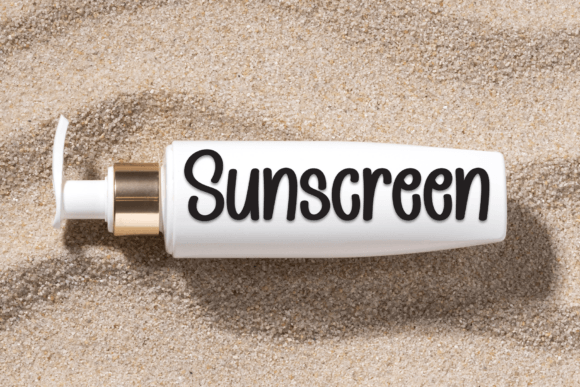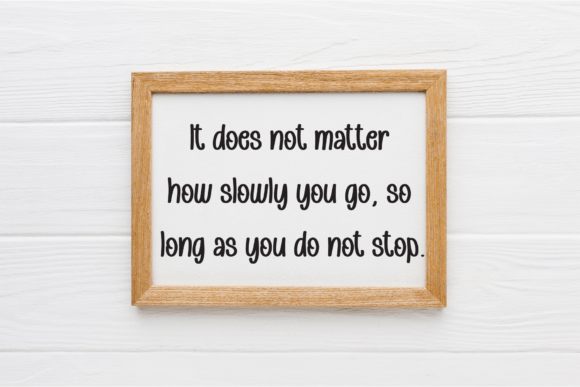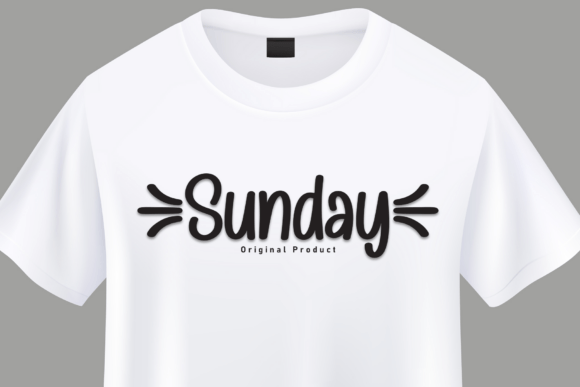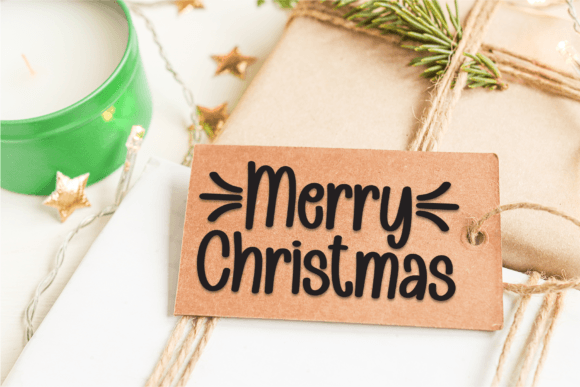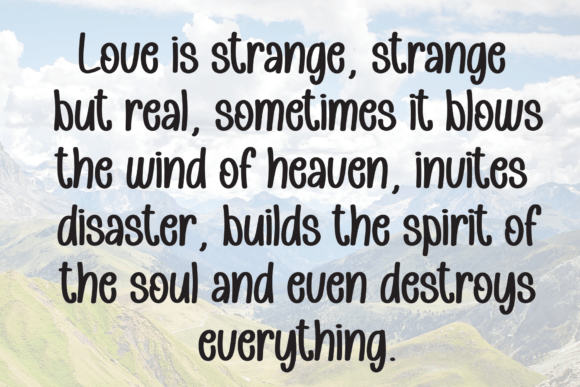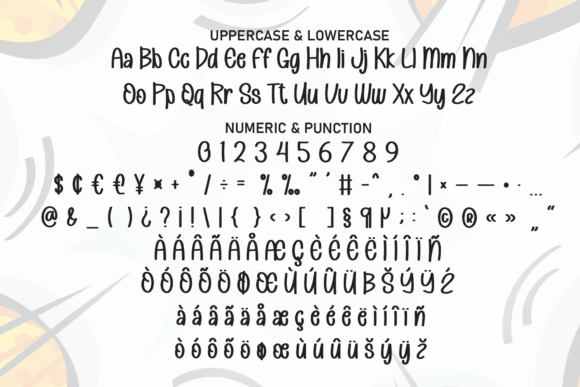
The Joy of Happy Comic Font: A Designer’s New Best Friend
I’ll never forget the time I was working on a wedding invitation project, and my client asked for a font that was “fun, playful, and not too formal.” I scoured the internet, tried out dozens of fonts, but nothing seemed quite right. That was until I stumbled upon Happy Comic Font. ✨ It’s been a game-changer ever since!
A First Impression: What I Love About Happy Comic Font
Happy Comic Font is a charming and inviting handwritten display font that exudes a delightful and friendly vibe. Here are some things I love about it:
- ✅ Unique and fun character that adds a playful touch to any design
- ✨ Whimsical and inviting feel that’s perfect for creative projects
- 🔥 Highly versatile and can be used for a variety of design scenarios
- 💕 Perfect for crafting wedding invitations, cards, or any design project that calls for a playful touch
While Happy Comic Font is an amazing font, it’s not perfect. Here are a few things to keep in mind:
- ⚠️ Some letters may be a bit too condensed, which can make them difficult to read at small sizes
- 🤔 Limited availability of stylistic alternates, which may limit its use in certain design scenarios
The Story Behind Happy Comic Font
Happy Comic Font was designed by a team of creatives who wanted to create a font that was fun, playful, and easy to read. The font was inspired by classic comic books and cartoons, with a modern twist. The designers wanted to create a font that would bring a smile to people’s faces and add a touch of whimsy to any design.
| Font Name | Happy Comic Font |
| What is Happy Comic Font? | Happy Comic Font is a charming and inviting handwritten display font that exudes a delightful and friendly vibe. |
| What can I use Happy Comic Font for? | Happy Comic Font is perfect for crafting wedding invitations, cards, or any design project that calls for a playful touch. |
| Is Happy Comic Font easy to read? | Yes, Happy Comic Font is designed to be easy to read, even at small sizes. |